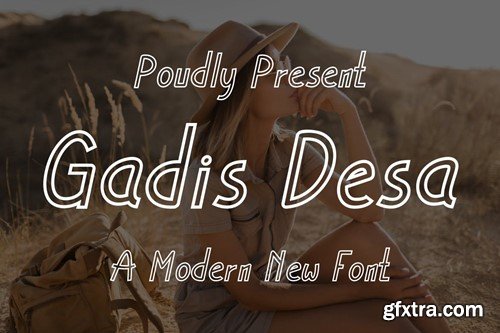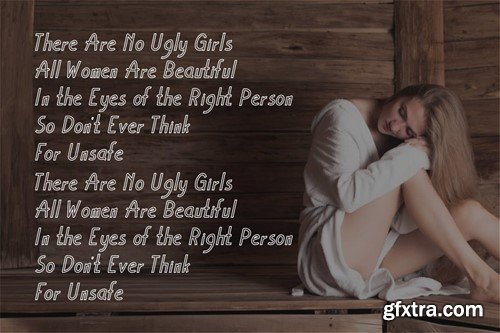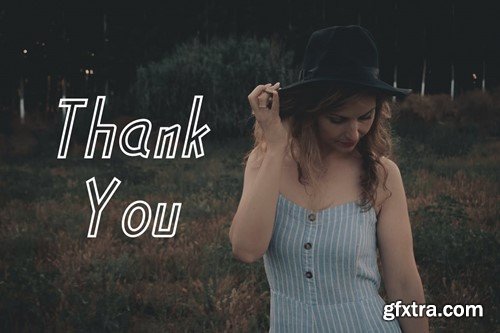
村姑 - 现代字体 QVQH2SZ
Gadis Desa - Modern Font
Introducing Gadis Desa Modern Serif. Gadis Desa is a modern and simple font, best used as a display for headings, logos, branding, magazines, product packaging and invitations. Gadis Desa come with clean lines and smooth curves give any project an extra touch of class. What you get: Thank you.